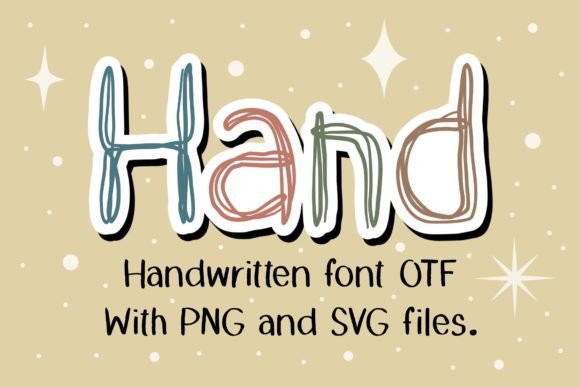
Doodle Font
Doodle is a messy handwriting font. Fun and a little bit quirky, this font is the perfect fit for all of your note, branding, social media, and crafty DIY projects.